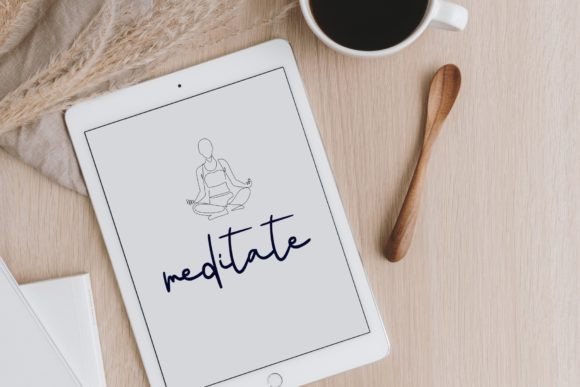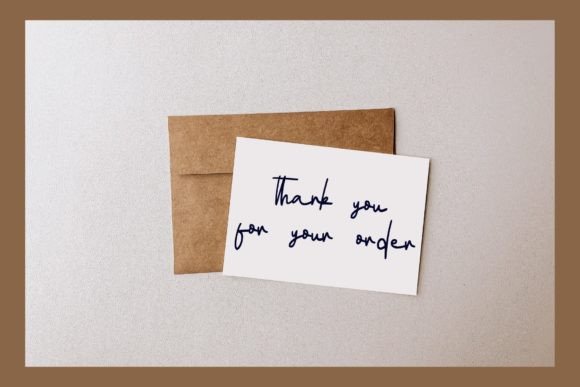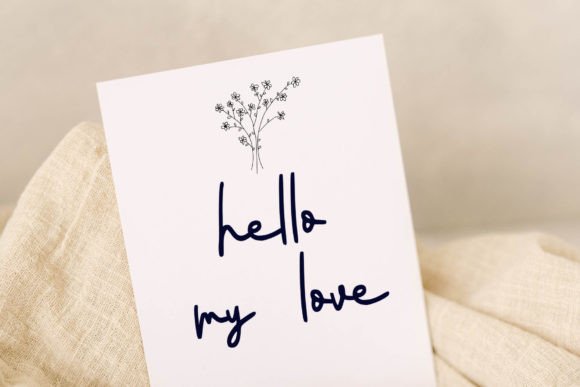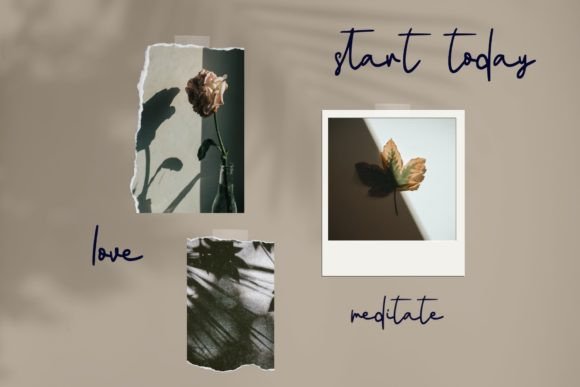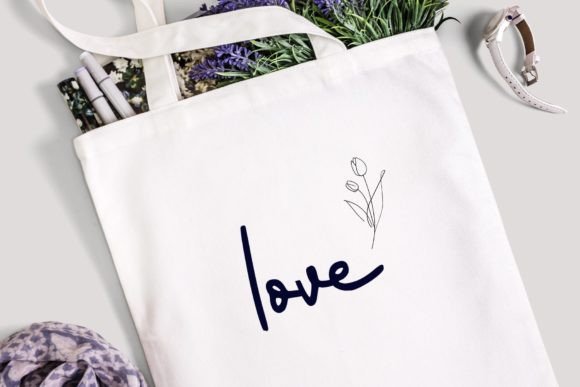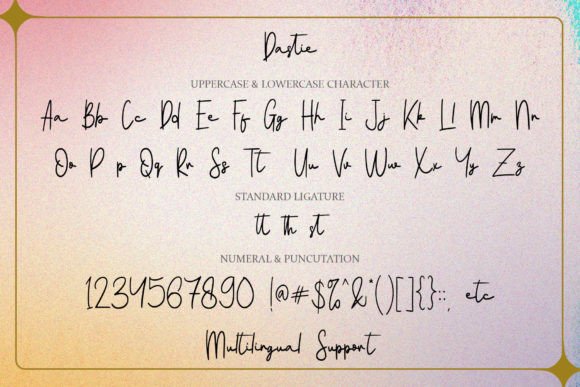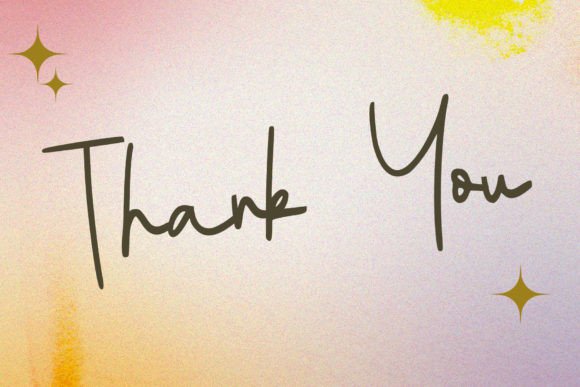
Dastie Font
Add Sweetness and Warmth with Dastie Font
Dastie Font is a sweet and friendly handwritten typeface designed to bring a natural and unique charm to your creative work. Its flowing lines and approachable style make it a perfect choice for a wide variety of design projects. Whether you’re crafting logos, greeting cards, or branding materials, Dastie Font adds warmth and personality to your designs.
The font’s hand-drawn feel makes every project stand out with authenticity and style, capturing the essence of personal creativity.
Versatile Uses for Dastie Font
Dastie Font fits beautifully into many creative contexts, such as:
• Logos and brand identities
• Greeting cards and invitations
• Product packaging and labels
• Social media graphics and posts
• Posters, flyers, and promotional materials
• Stationery and thank-you notes
Its natural and unique handwriting style ensures your designs are inviting, memorable, and engaging.
With well-kerned characters and balanced spacing, DastieFont maintains excellent readability and visual appeal at various sizes.
Why Designers Love Dastie Font
Designers and creatives appreciate DastieFont for its friendly and authentic style. It adds a handcrafted touch that resonates with audiences and enhances the personality of any project. Whether you’re a professional or a hobbyist, DastieFont is a versatile and charming choice that encourages creativity.
Use DastieFont to bring your ideas to life and make your designs shine with warmth and originality.